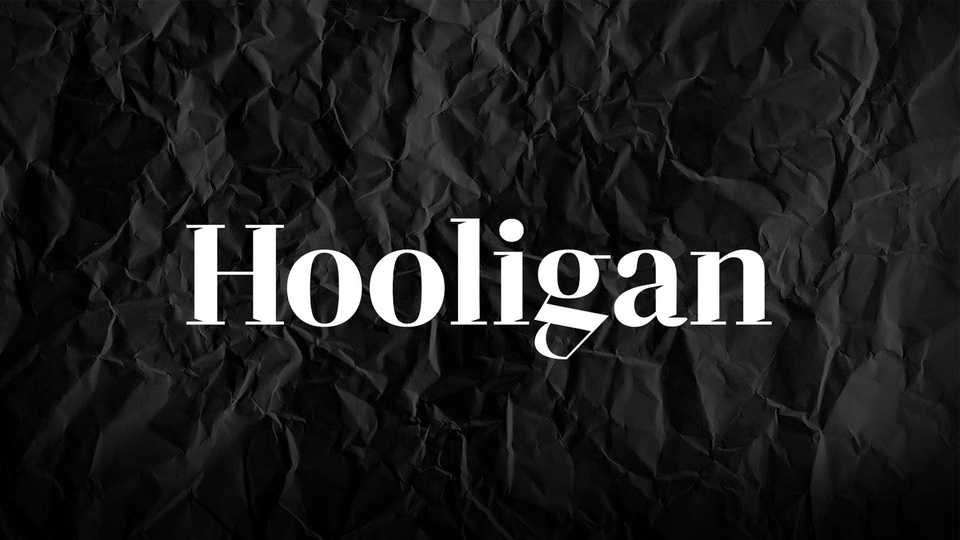
Download Hooligan font, a sharp and high contrast serif typeface, based on a DM Serif. Hooligan is ideal for branding, advertising, editorial design, and use on posters and social media.
Designer: Bódog Barnabás